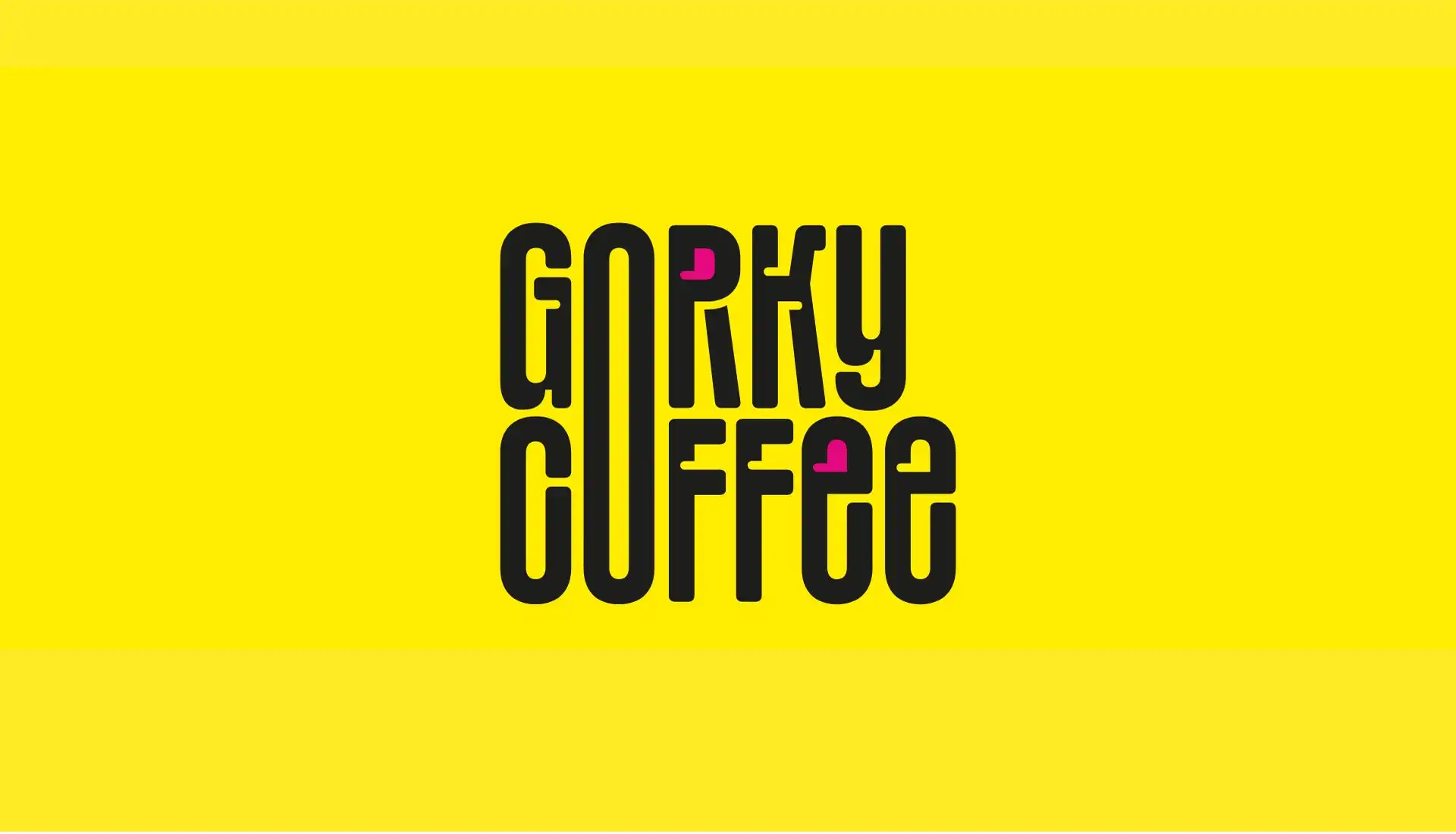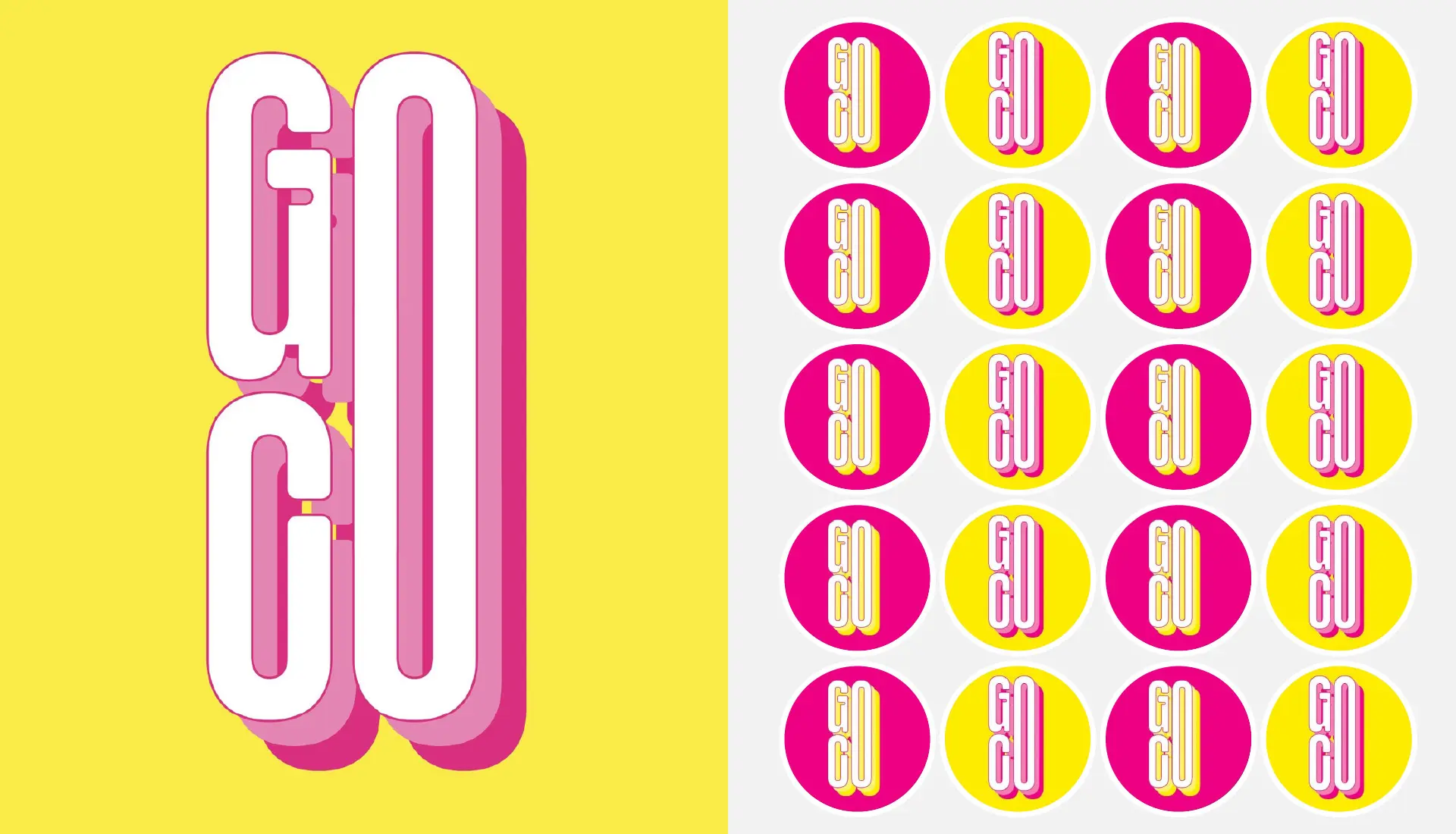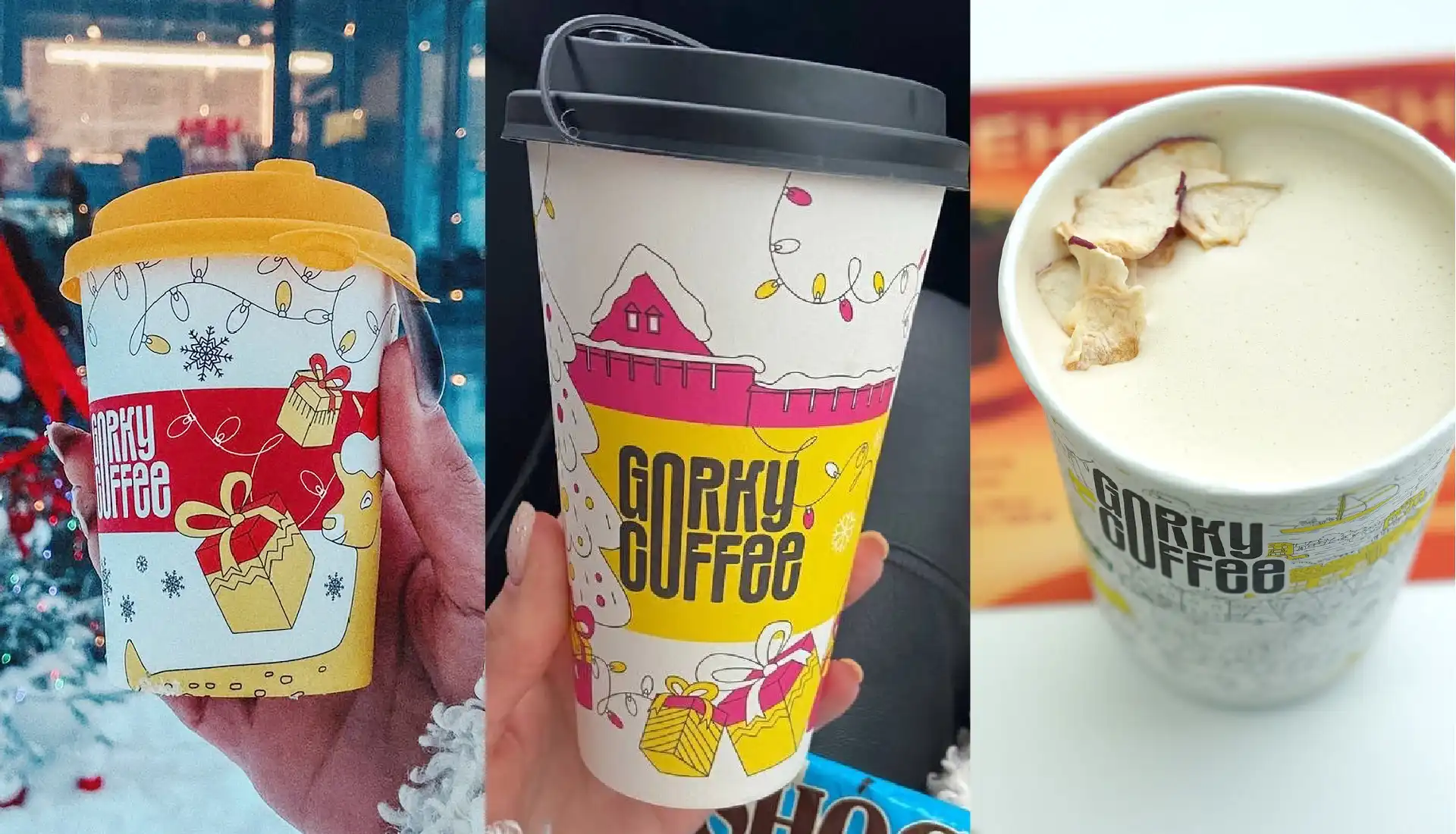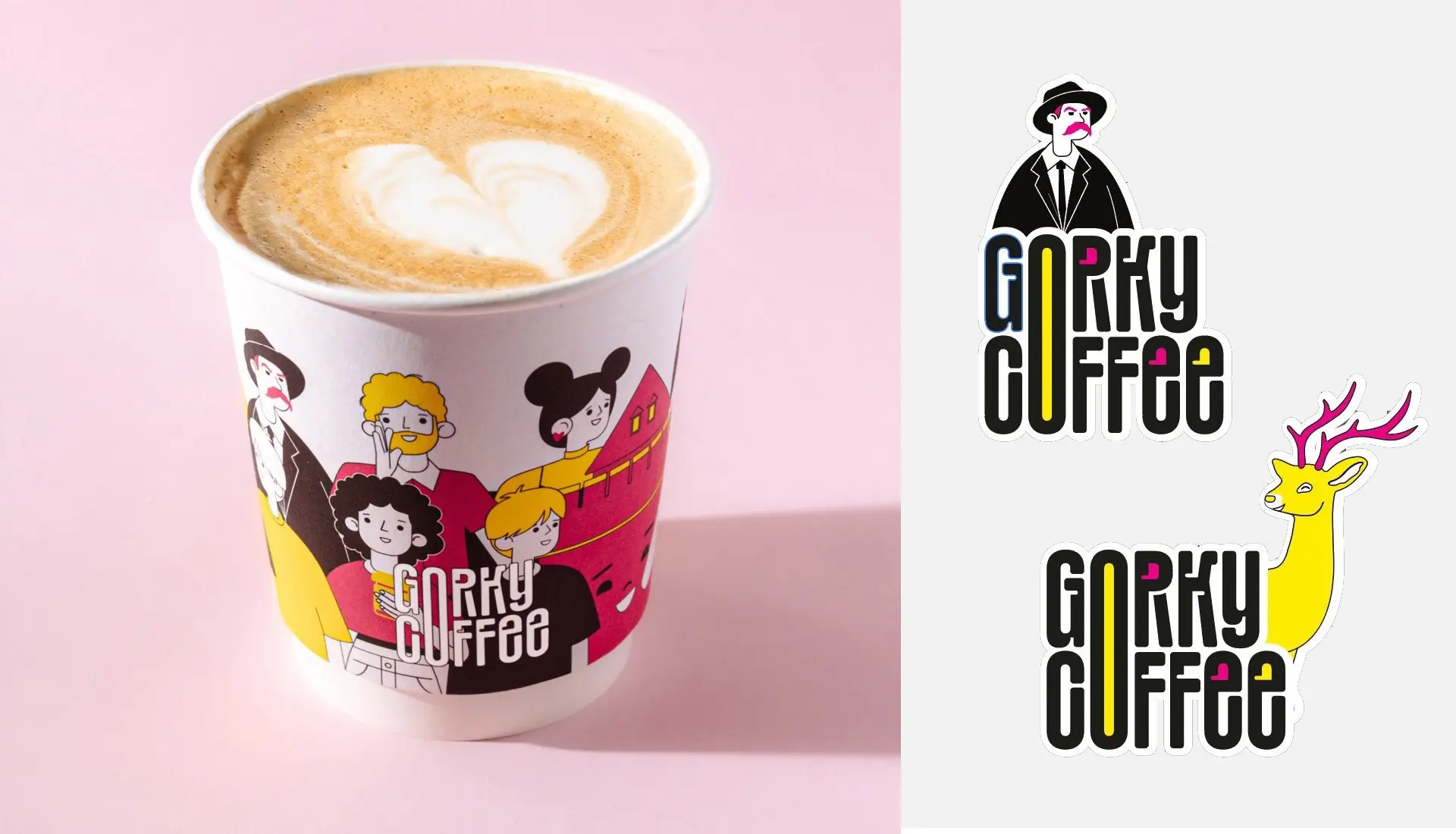
Gorky Coffee Bus — Mobile Coffee Experience
Font: SFT Sushka (DemiBold).
Use case: Branding, logo design.
About the Project:
Gorky Coffee Bus is a mobile coffee shop operating from a retrofitted bus, offering a unique and cozy coffee experience on the go. The branding prominently features SFT Sushka, a typeface known for its soft forms and rounded details, which reinforce the warm, inviting character of the brand. Playful hand-drawn illustrations further enhance this aesthetic, creating a seamless visual identity where typography and graphics work together to evoke a sense of comfort and approachability.
Why SFT Sushka?
SFT Sushka is a friendly, expressive typeface designed for branding and packaging, making it ideal for Gorky Coffee Bus. Its rounded forms and organic flow match the hand-drawn illustrations, ensuring a cohesive and visually engaging experience across signage, menus, and promotional materials. This combination strengthens the brand’s storytelling, making each interaction feel warm and personal.